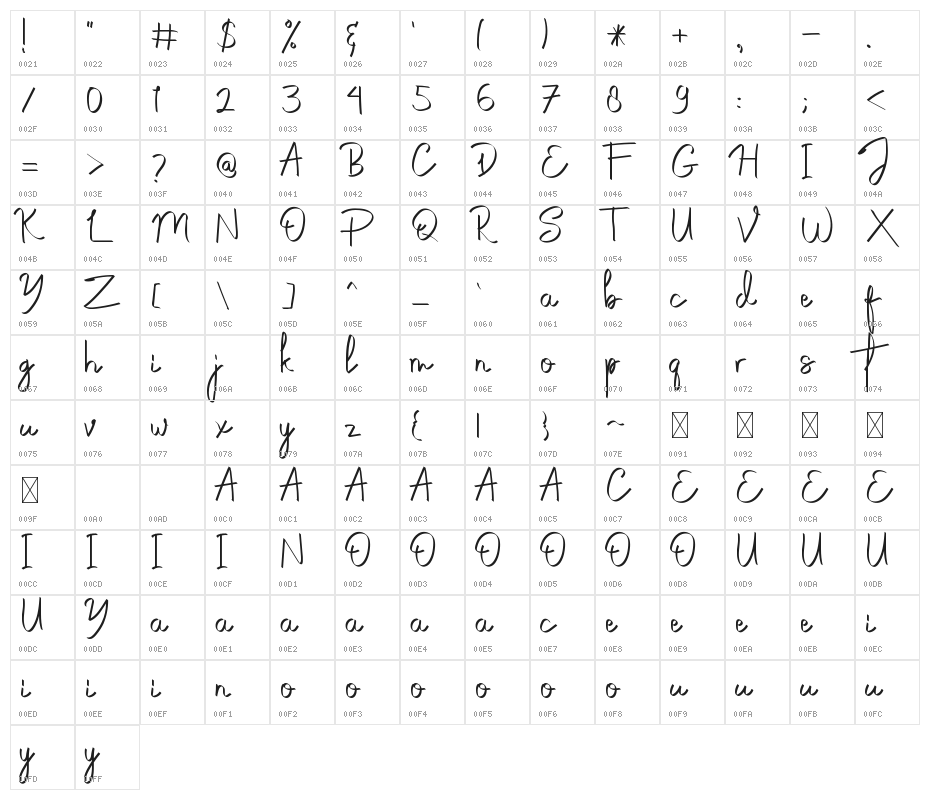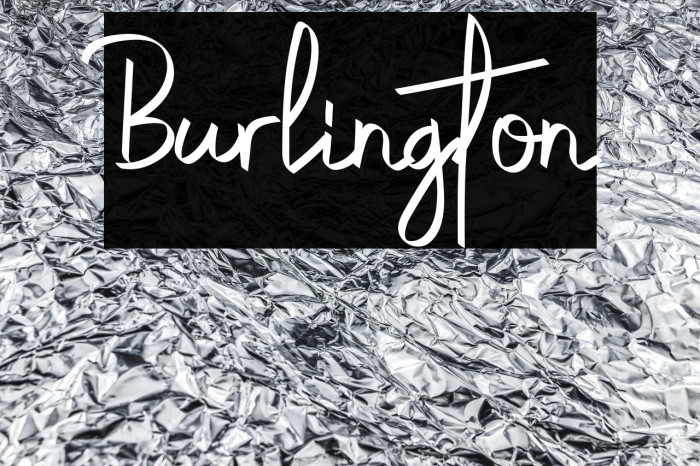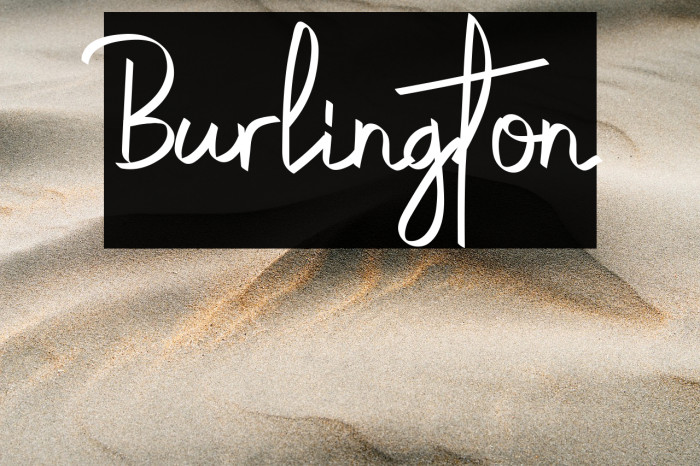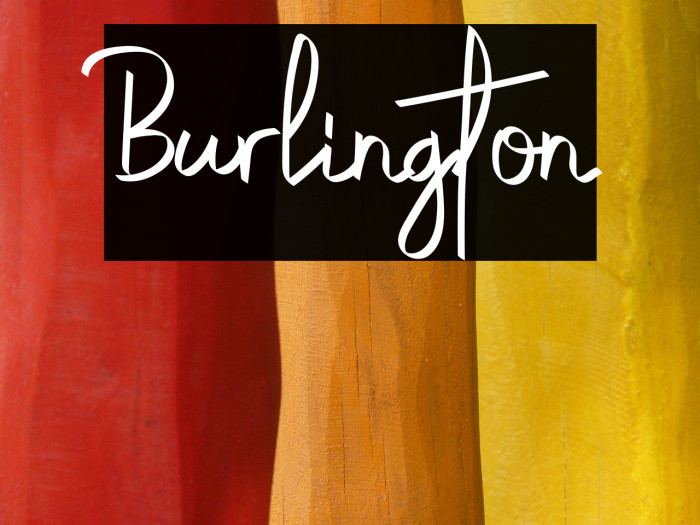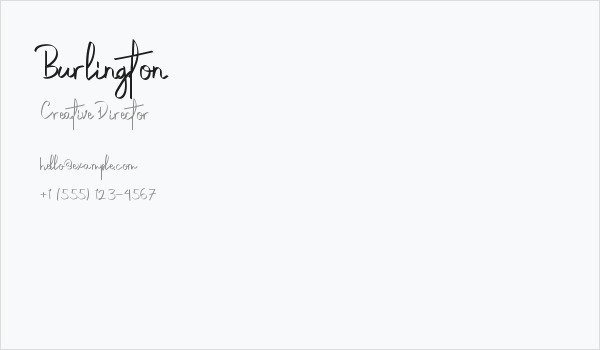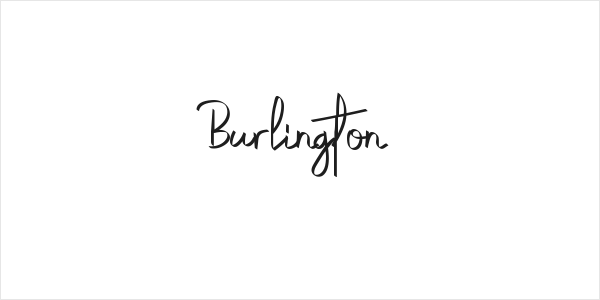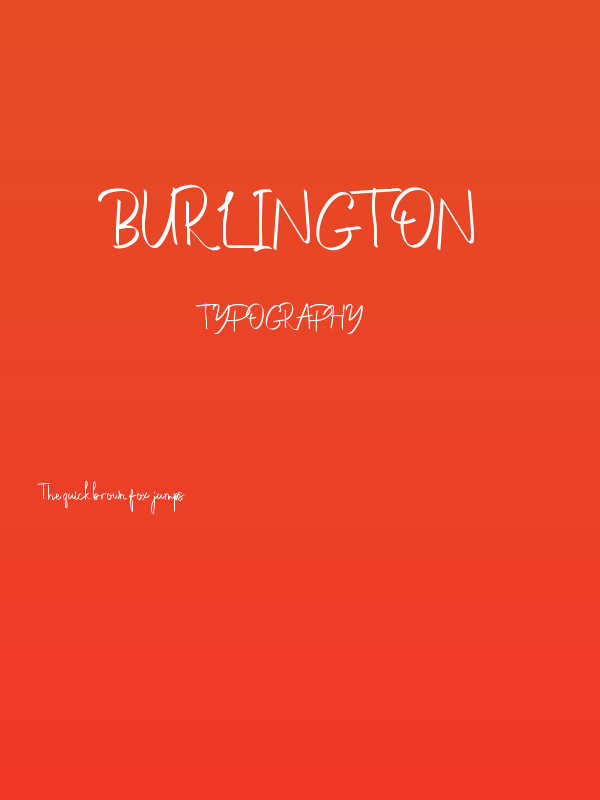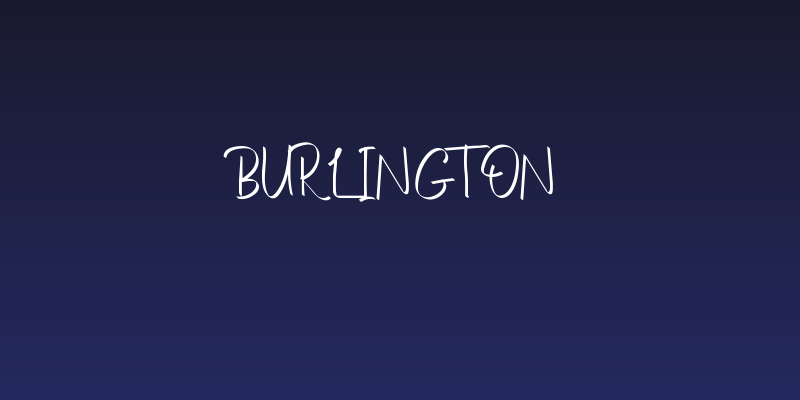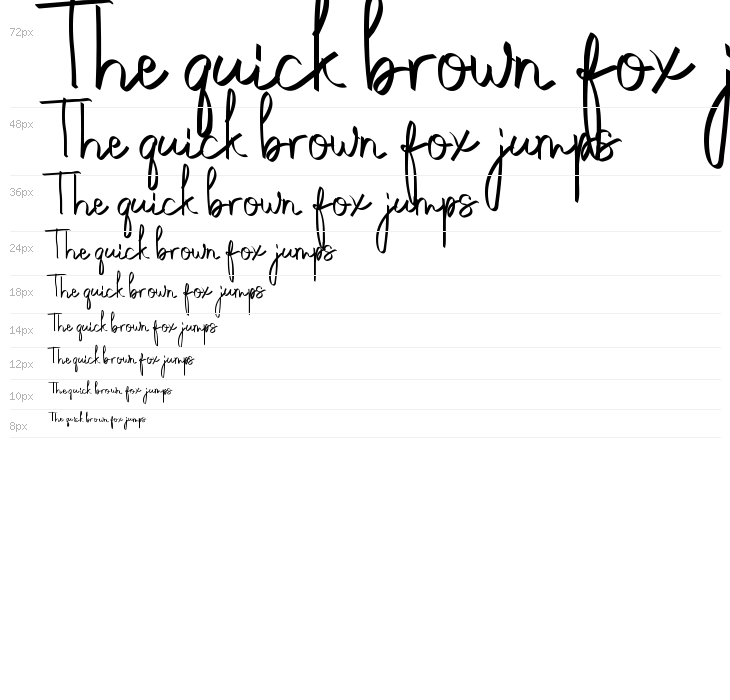
Burlington Font
Burlington Description
A playful and casual handwritten font with a natural flow and irregular strokes, giving it a personal and informal feel.
| Overall Style | Casual and playful |
| Use Case | Greeting cards, personal notes, informal branding. |
| Proposed Projects | Greeting cards, personal notes, informal branding. |